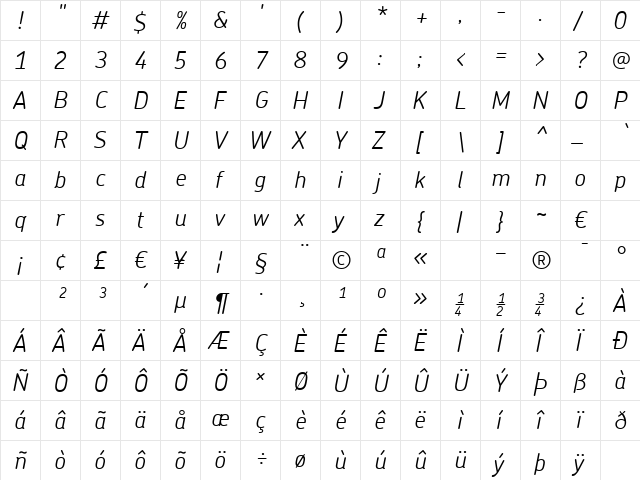
ChevinLightItalic Regular Font Preview
ChevinLightItalic Regular
ChevinLightItalic Regular Font Details
Design Context for ChevinLightItalic Typeface
ChevinLightItalic takes a measured approach to typography — its balanced proportions and neutral character make it a reliable workhorse for both digital and print work. The slanted form adds forward momentum and visual energy. The delicate stroke weight brings airiness and refinement to layouts.